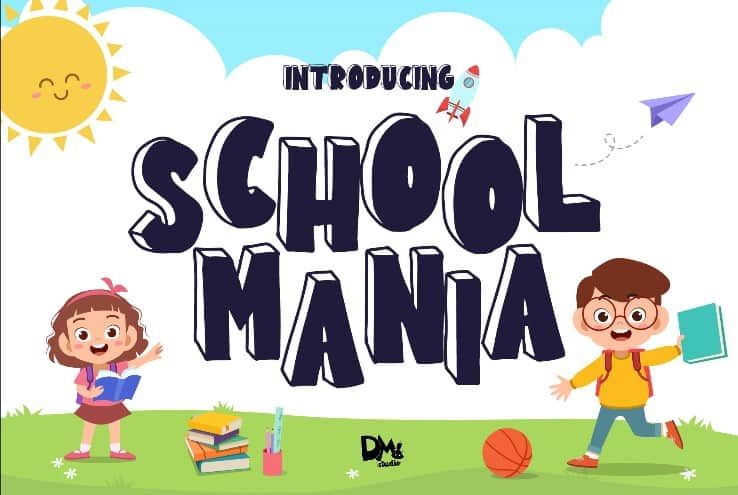
School Mania – Block Crafty Font
The School Mania Font is a playful and dynamic typeface that embodies the spirit of learning and education. With its vibrant letterforms and energetic design, this font brings a touch of fun and excitement to your educational materials, school projects, children’s books, and other creative endeavors.
1. Playful and Energetic Style: The School Mania Font exudes a fun and vibrant aesthetic. Its playful letterforms and dynamic design capture the essence of curiosity and learning, creating an engaging and lively look for your designs.
2. Perfect for Educational Materials: The font is well-suited for various educational materials, including worksheets, posters, presentations, and classroom displays. It adds a touch of creativity and excitement to learning materials, making them visually appealing to students of all ages.
3. Versatile Application: This font can be used for a wide range of design projects related to education and children’s content. Incorporate it into school logos, children’s books, educational apps, and more to create a visually captivating and educational experience.
4. Uppercase and Lowercase Letters: The font includes both uppercase and lowercase letters, providing flexibility and creative freedom in your designs. Mix and match the cases to create visually appealing and balanced typography.
5. Punctuation and Symbols: In addition to the alphabet, the School Mania Font includes a comprehensive set of punctuation marks, numerals, and common symbols. This ensures consistency and ease of use when incorporating the font into your design projects.
Inject the spirit of learning and fun into your designs with the School Mania Font. Let its vibrant letterforms and dynamic design bring excitement and creativity to your educational materials, children’s books, and school projects. Create designs that inspire and engage, fostering a love for learning through visually captivating typography.